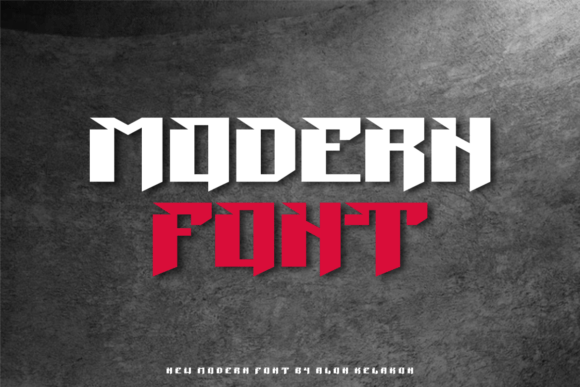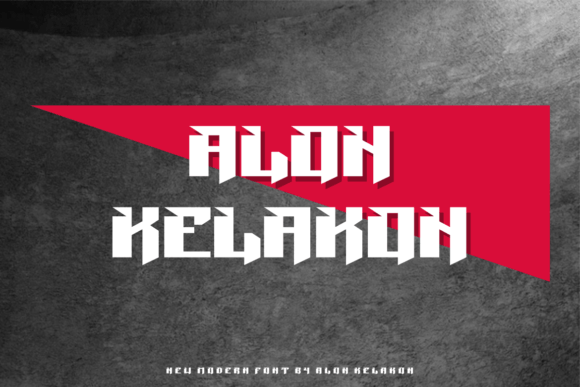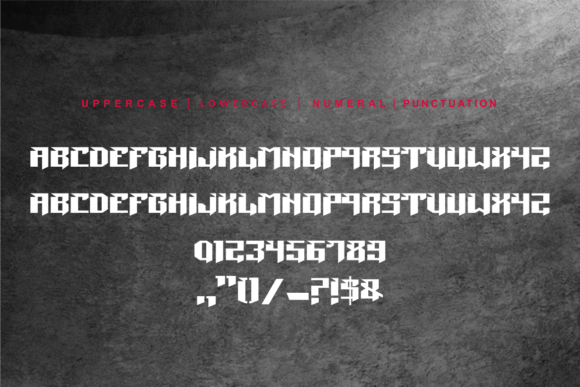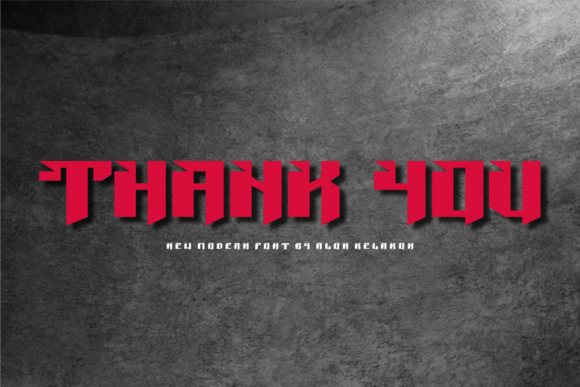
Introducing Garoming Font: The Cool and Modern Display Font You Need
Are you tired of using the same old fonts for your creative projects? Look no further! Garoming Font is here to revolutionize the way you approach typography. This stunning display font is designed to make your designs stand out and bring your creative ideas to life. In this article, we’ll dive into the world of Garoming Font and explore its features, benefits, and uses.
What is Garoming Font?
Garoming is a cool and modern display font that has been masterfully designed to become a true favorite among designers and crafters. Its unique and stylish design makes it perfect for a wide range of creative projects, from branding and advertising to packaging and digital media. With Garoming Font, you can add a touch of sophistication and elegance to your designs, making them truly unforgettable.
Key Features of Garoming Font
- Unique and Stylish Design: Garoming Font boasts a distinctive and modern design that sets it apart from other fonts.
- High-Quality Typography: The font features high-quality typography, ensuring that your designs look professional and polished.
- Versatile: Garoming Font is perfect for a wide range of creative projects, from digital media to print materials.
- Easily Customizable: The font is easily customizable, allowing you to adjust the size, color, and style to suit your design needs.
Benefits of Using Garoming Font
So, why choose Garoming Font for your creative projects? Here are just a few benefits of using this amazing display font:
- Adds Visual Impact: Garoming Font adds a touch of sophistication and elegance to your designs, making them truly stand out.
- Enhances Creativity: With Garoming Font, you can bring your creative ideas to life and take your designs to the next level.
- Saves Time: The font’s high-quality design and versatility save you time and effort, allowing you to focus on other aspects of your project.
- Perfect for Branding: Garoming Font is perfect for branding and advertising projects, helping you to create a lasting impression on your audience.
Who Can Benefit from Garoming Font?
Garoming Font is perfect for a wide range of designers and crafters, including:
- Graphic Designers: Add a touch of sophistication to your designs and take your typography to the next level.
- Digital Artists: Bring your digital art to life with the unique and stylish design of Garoming Font.
- Crafters: Add a professional touch to your craft projects, from packaging to promotional materials.
- Branding Experts: Create a lasting impression on your audience with Garoming Font’s high-quality design and versatility.
- Experiment with Different Sizes: Try out different font sizes to see how Garoming Font looks in different contexts.
- Play with Colors: Experiment with different colors to find the perfect match for your design.
- Combine with Other Fonts: Try pairing Garoming Font with other fonts to create a unique and stylish design.
In conclusion, Garoming Font is a cool and modern display font that is perfect for designers and crafters looking to add a touch of sophistication to their creative projects. With its unique and stylish design, high-quality typography, and versatility, Garoming Font is sure to become a true favorite. Whether you’re working on a branding project, digital art, or craft project, Garoming Font is the perfect choice. So why wait? Download Garoming Font today and take your designs to the next level!